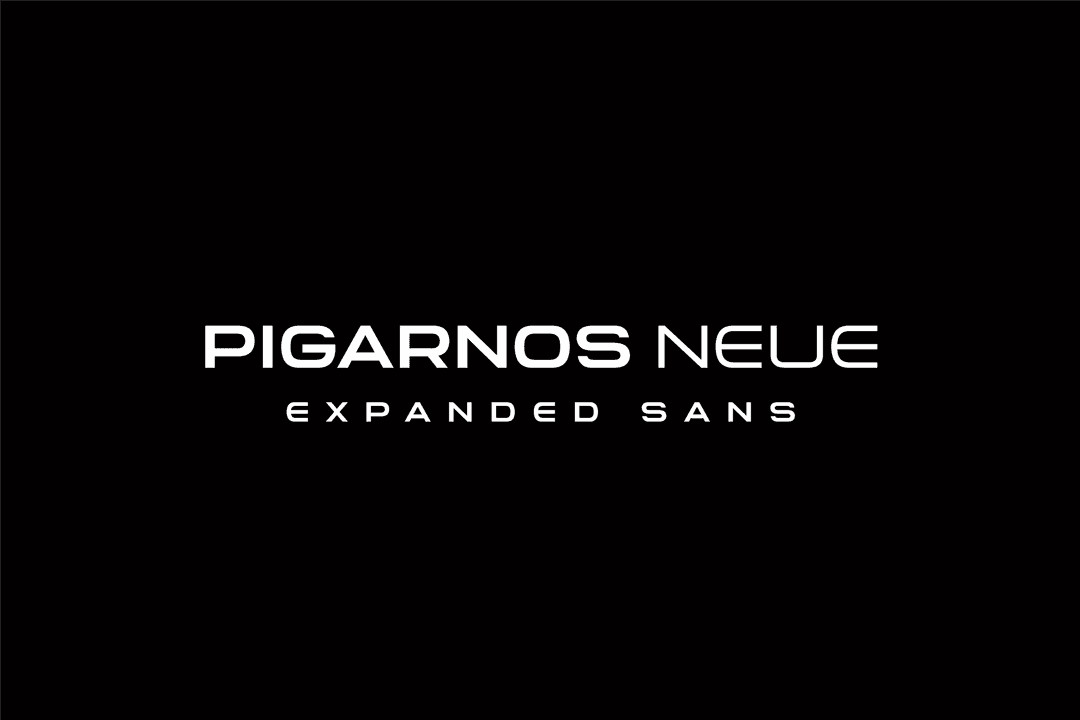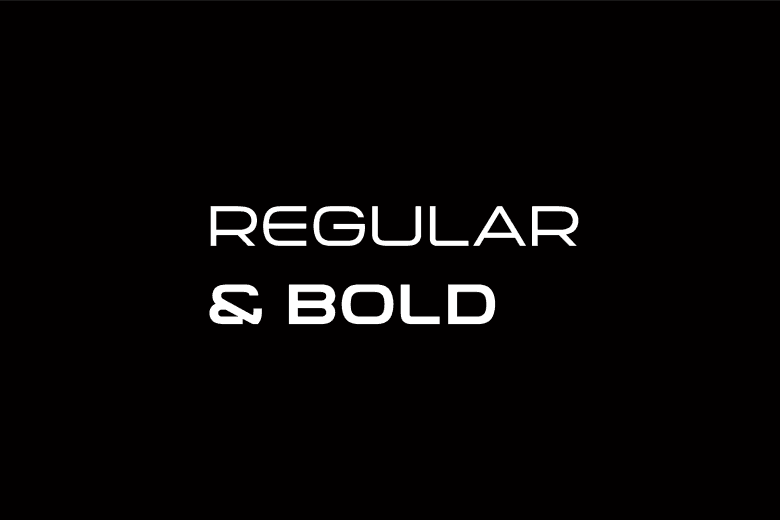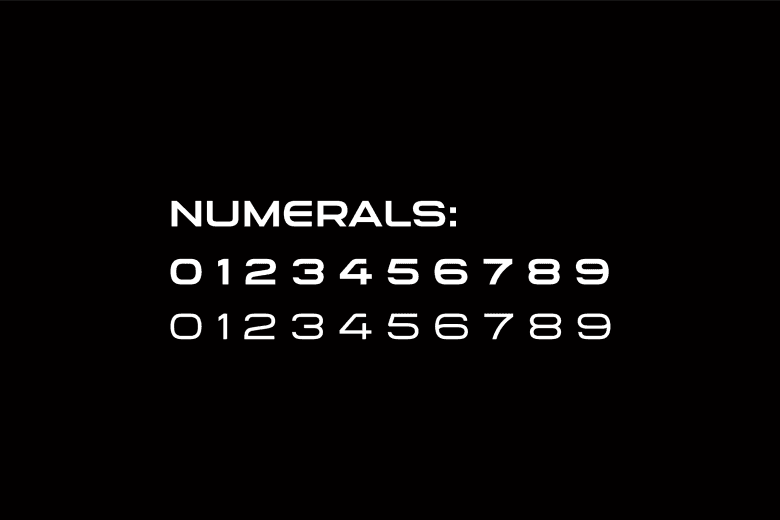
Pigarnos Neuis a contemporary, futuristic sans serif font featuring wide and extended glyphs that is ideal for projects which require futuristic accents – it can be used in logo designs as well as social media posts, banners posters and headers to add flair.